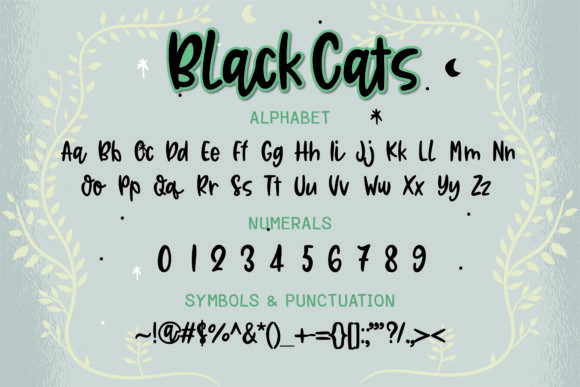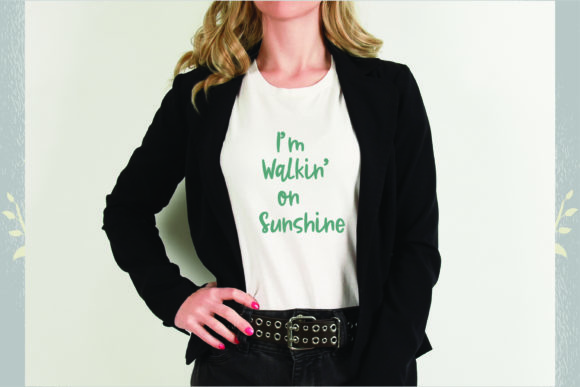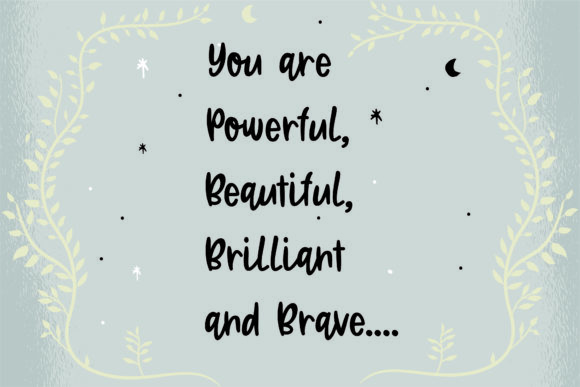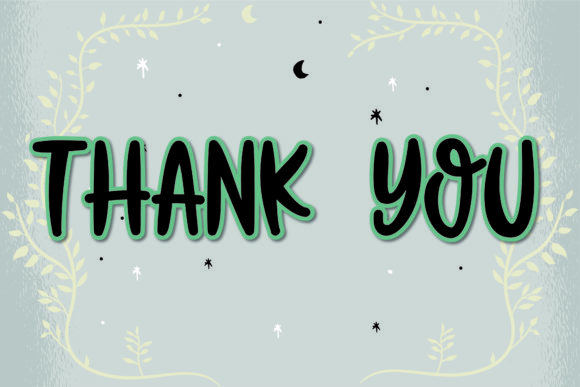
Unleash Your Creativity with BlackCats Font: A Fun and Informal Handwritten Delight
Are you a designer, crafter, or DIY enthusiast looking for a font that can add a touch of personality to your projects? Look no further than BlackCats Font, a fun and informal handwritten font that’s sure to spark your creativity. With its natural and unique style, BlackCats Font is incredibly versatile and can be used in a wide range of designs, from playful crafts to bold branding statements.
The Charm of BlackCats Font
BlackCats Font is a one-of-a-kind handwritten font that’s full of character and charm. Its informal, cursive style gives it a friendly and approachable feel, making it perfect for projects that require a personal touch. Whether you’re creating handmade cards, crafting signs, or designing social media graphics, BlackCats Font is sure to add a dash of whimsy and fun to your work.
Endless Possibilities with BlackCats Font
The beauty of BlackCats Font lies in its versatility. Its unique style makes it suitable for a wide range of designs, from:
- Handmade crafts, such as card making, scrapbooking, and DIY jewelry
- Sign making, including chalkboards, store signs, and event banners
- Social media graphics, including Instagram posts, Facebook covers, and Twitter headers
- Branding and packaging, such as labels, stickers, and product tags
- Stationery and paper crafts, including journals, planners, and gift tags
The only limit to what you can create with BlackCats Font is your imagination! Whether you’re a seasoned designer or a crafting newbie, this font is sure to inspire you to try new things and push the boundaries of your creativity.
Why Choose BlackCats Font?
So why choose BlackCats Font over other fonts? Here are just a few reasons why this font stands out:
- Unique style: BlackCats Font has a one-of-a-kind, handwritten style that’s sure to grab attention
- Versatility: This font can be used in a wide range of designs, from playful crafts to bold branding statements
- Ease of use: BlackCats Font is easy to read and works well in both digital and print formats
- Fun and playful: This font is perfect for projects that require a dash of personality and whimsy
Tips for Using BlackCats Font
To get the most out of BlackCats Font, here are a few tips to keep in mind:
- Experiment with sizes: BlackCats Font looks great in a variety of sizes, from small and delicate to large and bold
- Play with colors: This font works well in a range of colors, from bright and bold to soft and pastel
- Mix and match: Combine BlackCats Font with other fonts and graphics to create unique and eye-catching designs
- Keep it simple: Don’t be afraid to use BlackCats Font on its own – its simplicity can be just as effective as a bold, graphic design
| Font Name | BlackCats Font |
| Author | GoodMoodType |
BlackCats Font is a fun and informal handwritten font that’s sure to add a touch of personality to your designs. With its natural and unique style, this font is incredibly versatile and can be used in a wide range of projects, from handmade crafts to bold branding statements. So why not give BlackCats Font a try and see where your creativity takes you?
Whether you’re a designer, crafter, or DIY enthusiast, BlackCats Font is the perfect addition to your creative toolkit. So go ahead, unleash your imagination, and see what amazing things you can create with BlackCats Font!